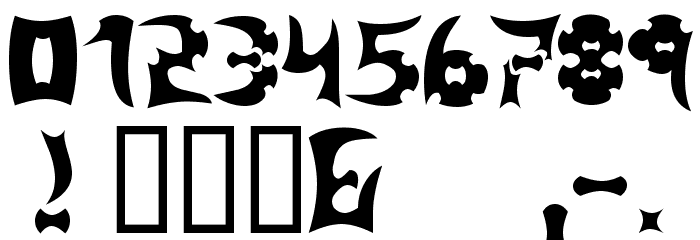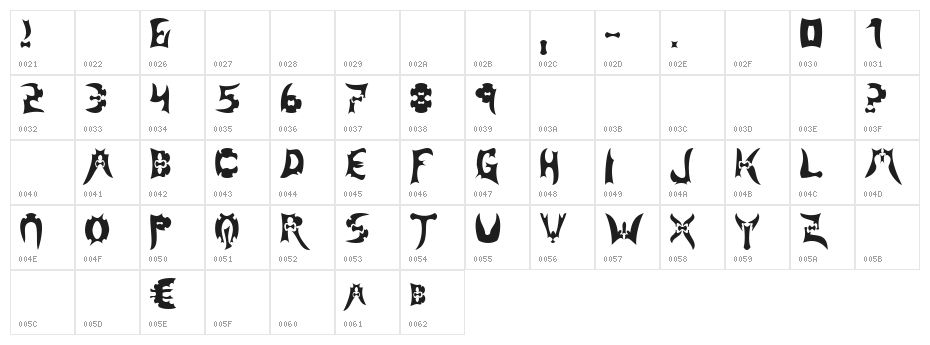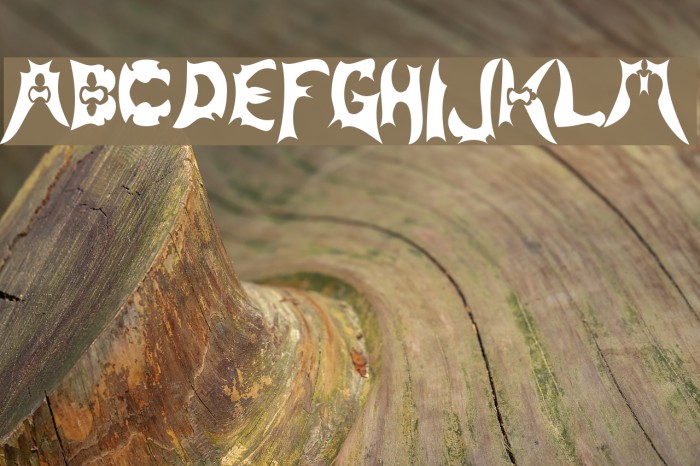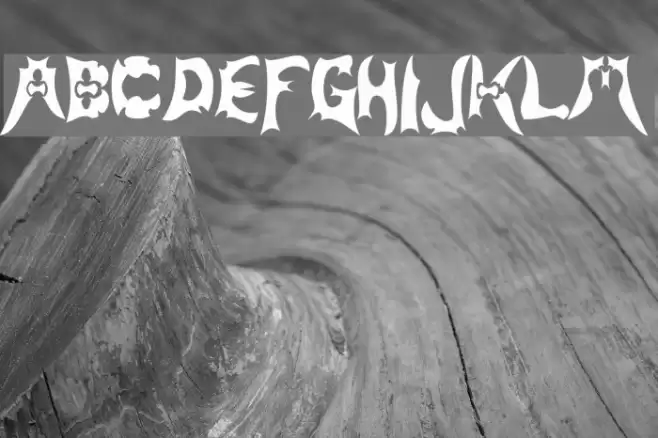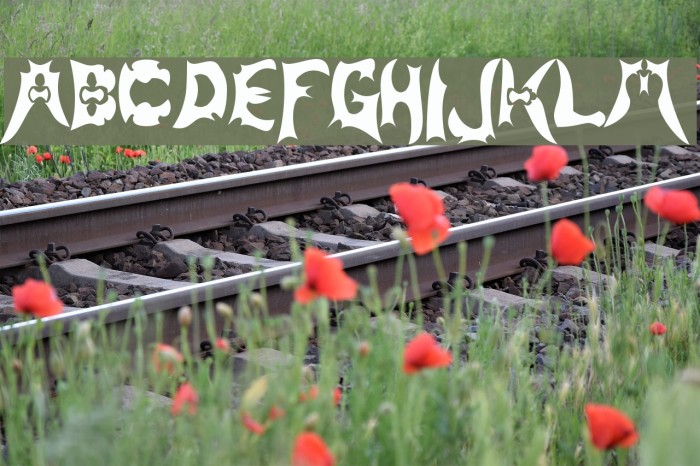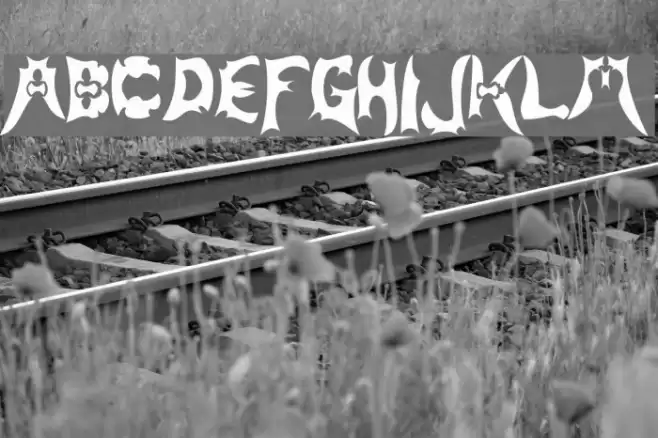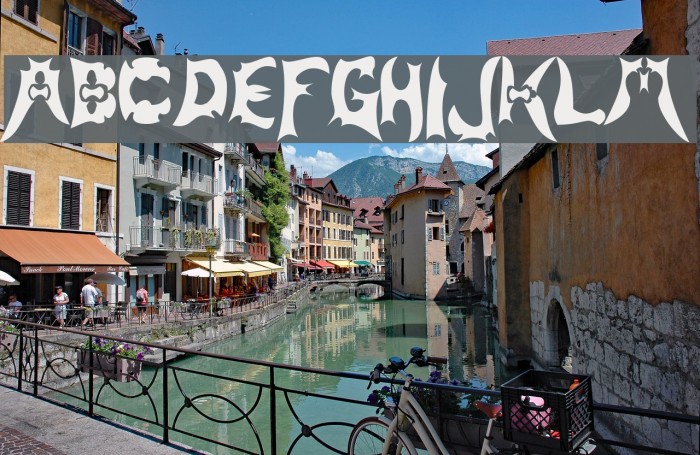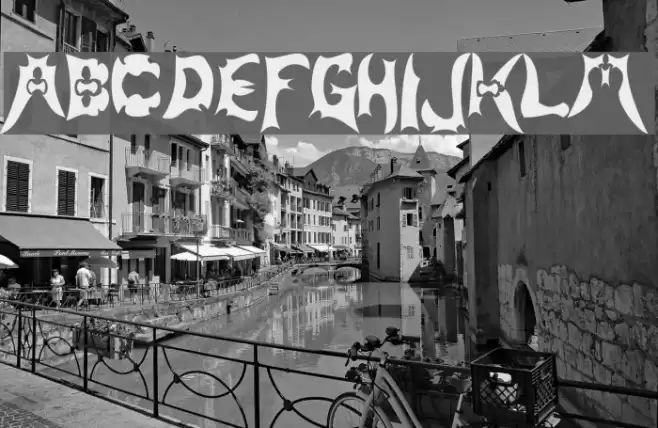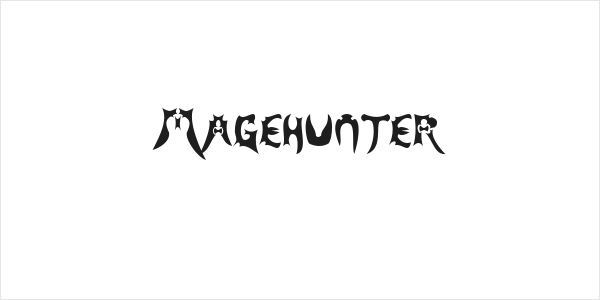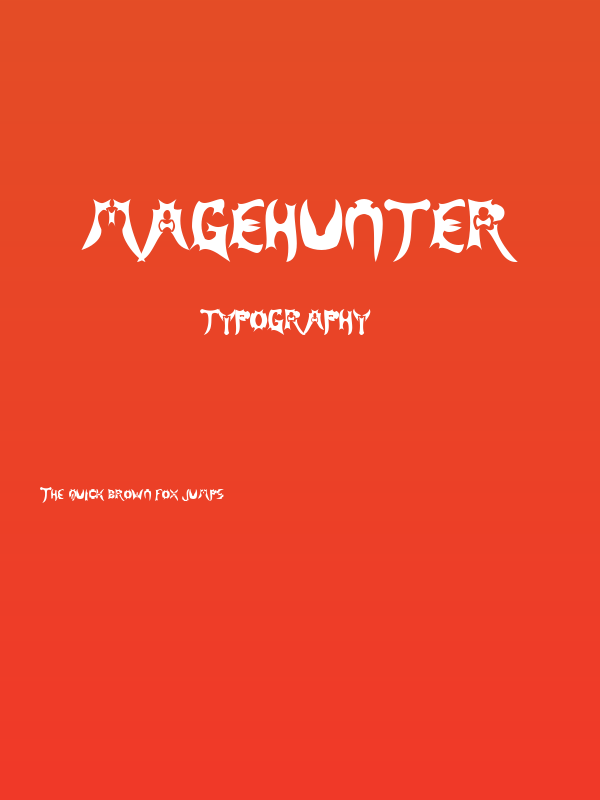
Magehunter Font
Magehunter Description
This font features a bold and dramatic style with sharp, angular edges and intricate detailing. Each character is designed with a gothic flair, incorporating pointed tips and ornamental elements that give it a mystical and medieval appearance. The uppercase and lowercase letters maintain a consistent theme, with the numbers and special characters complementing the overall aesthetic. The font's unique design makes it stand out, perfect for projects that require a touch of fantasy or dark elegance.
| Overall Style | Gothic, Fantasy |
| Proposed Projects | Ideal for fantasy-themed designs, game titles, book covers, posters, and branding that requires a dramatic and mystical touch. |